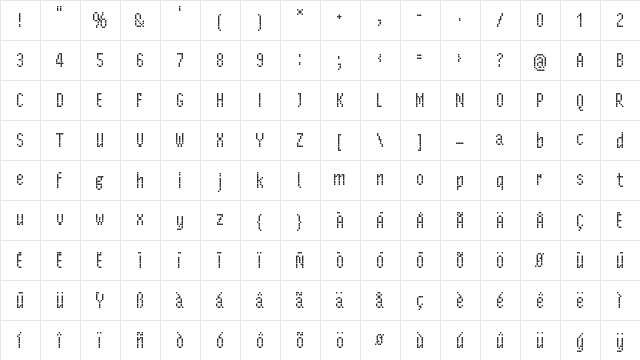
Parisienne Small Regular
| Designer | Jeffrey Visser |
Design Context for Parisienne Small Typeface
Parisienne Small takes a measured approach to typography — its balanced proportions and neutral character make it a reliable workhorse for both digital and print work.